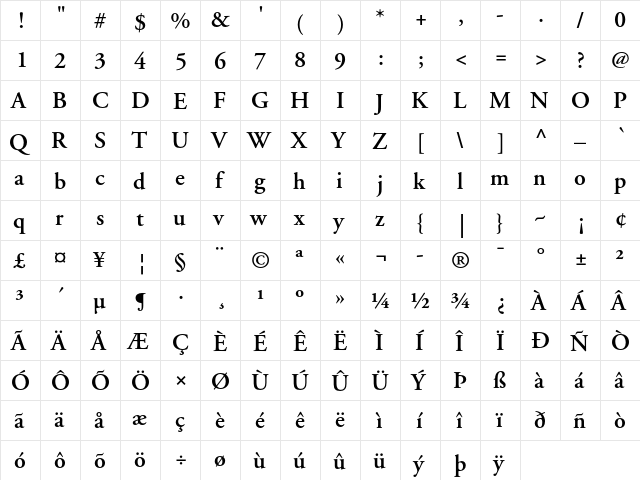
Adobe Garamond Semibold Font Preview
Adobe Garamond Semibold
Design Context for Adobe Garamond Typeface
Adobe Garamond is a composed and adaptable typeface that performs quietly and consistently across a wide range of design contexts. The heavy weight commands attention and anchors typographic hierarchies.
Pro Tip: Pair Adobe Garamond with a font of contrasting weight or personality to build a more expressive typographic hierarchy.